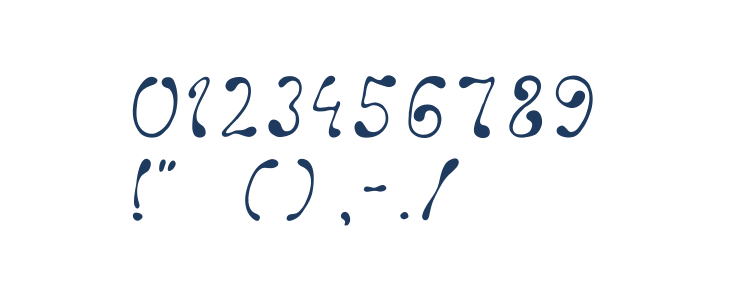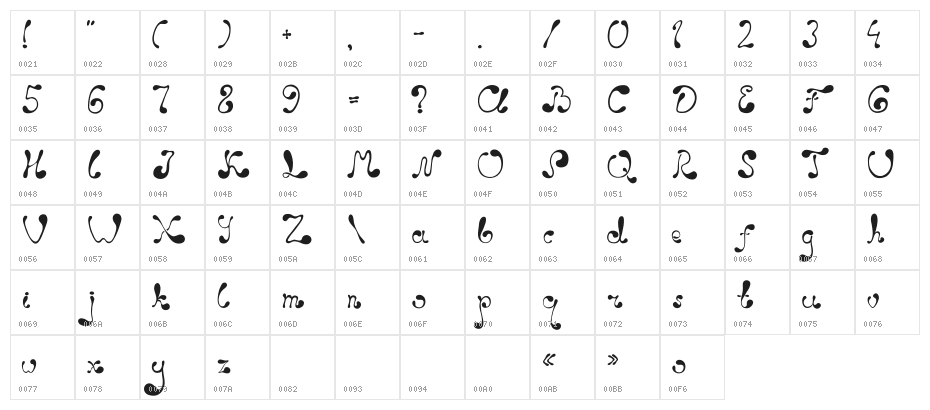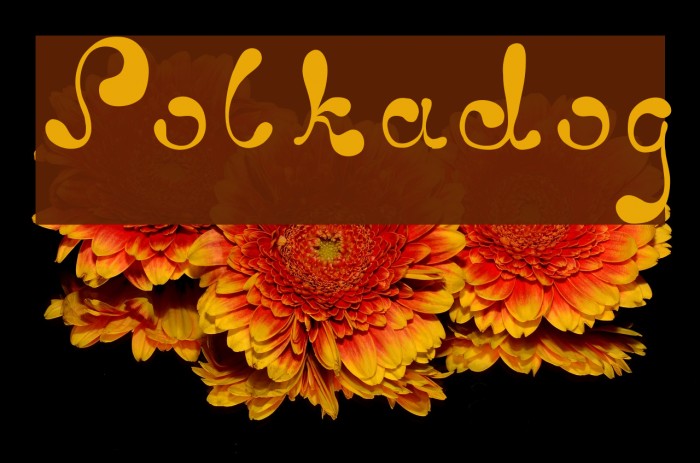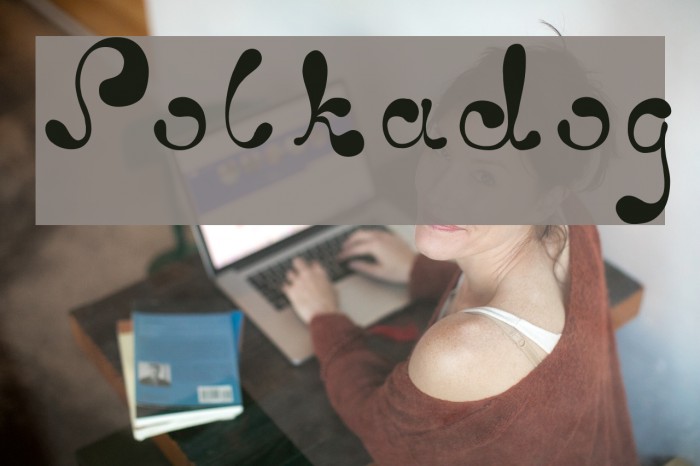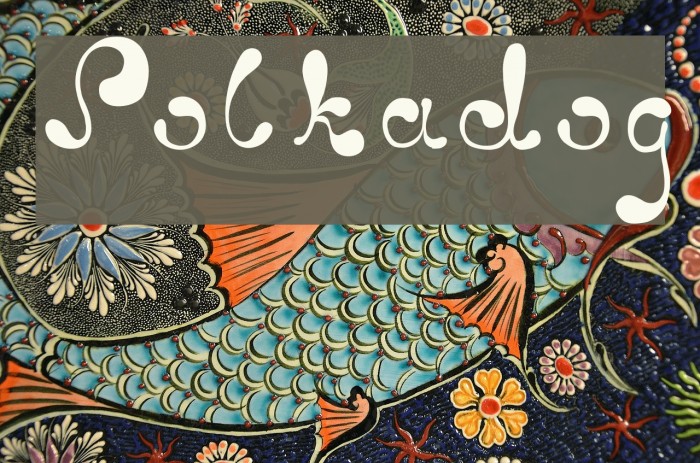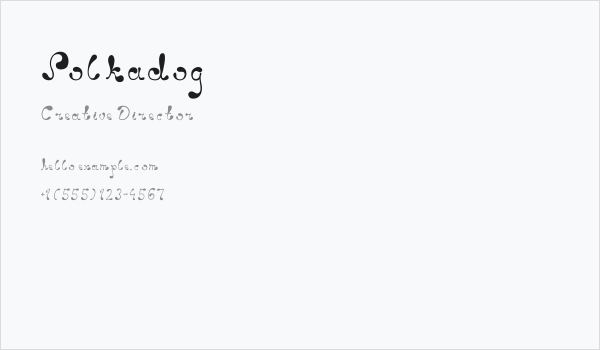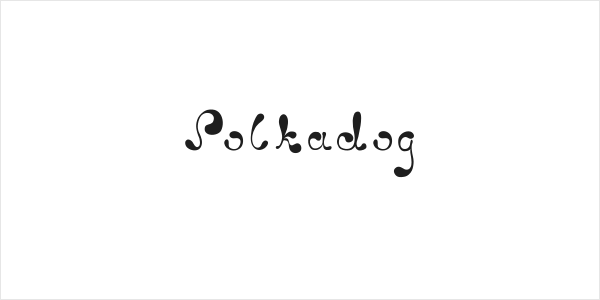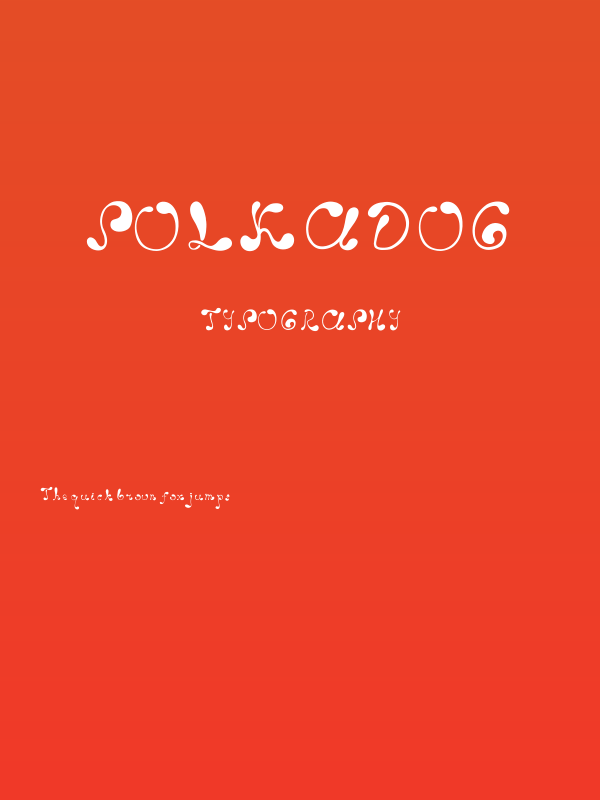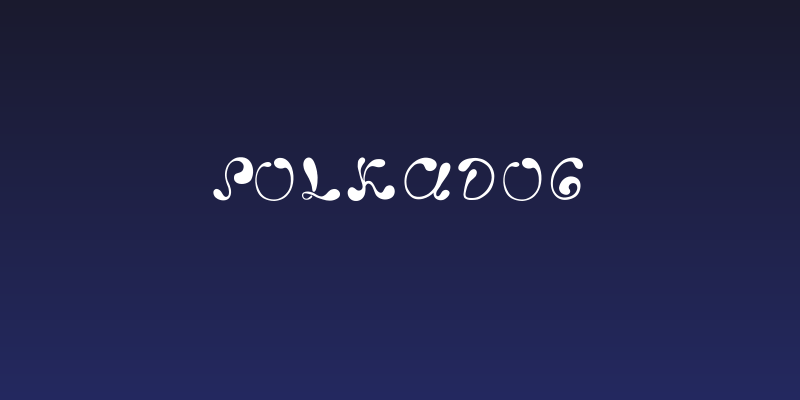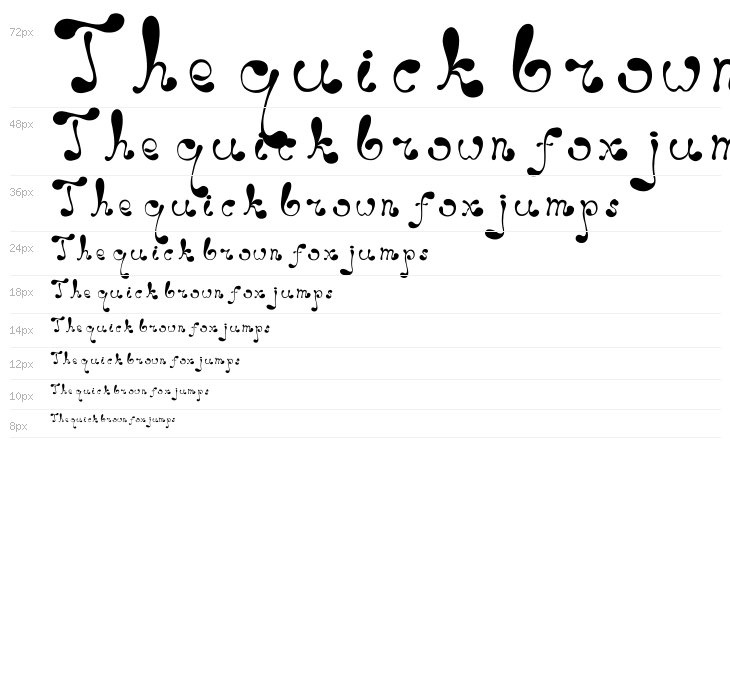
Polkadog Font
Polkadog Description
This font features a playful and whimsical design, characterized by its unique polka dot-like embellishments on each character. The letters are curvy and fluid, giving a sense of movement and creativity. The uppercase and lowercase letters maintain a consistent style, with rounded edges and varying stroke thicknesses that add to its charm. Numbers and special characters are equally stylized, ensuring a cohesive look throughout. This font is ideal for projects that require a fun and engaging aesthetic, making it perfect for children's books, playful branding, or creative invitations.
| Proposed Projects | Children's books, playful branding, creative invitations, greeting cards. |